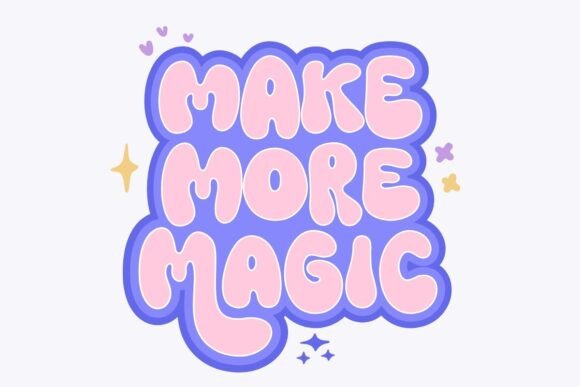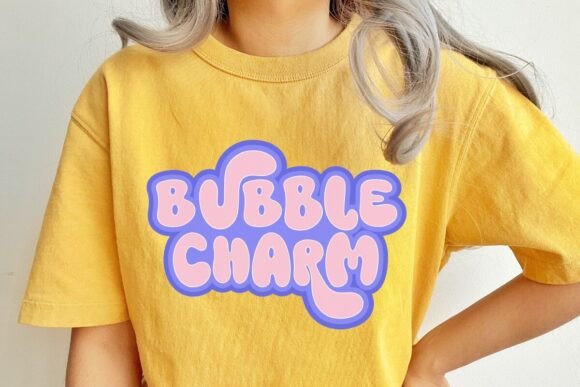
Bubble Mood Font
Immerse yourself in the playful world of Bubble Mood, a meticulously handcrafted bubble font boasting singular and memorable characters. Its unique charm shines when you daringly intertwine uppercase and lowercase letters, creating a visual dance of typography. To infuse even more exuberance into your designs, alternative blends are at your disposal. With Bubble Mood, you can transform ordinary items – be it t-shirts, tote bags, tumblers, mugs, hoodies, or even silicone items – into extraordinary works of art hinted with inspiring quotes. This versatile font is designed to supplement your creative pursuits and breathe life into any craft project. Go ahead, let Bubble Mood be the new aesthetic for your creations.